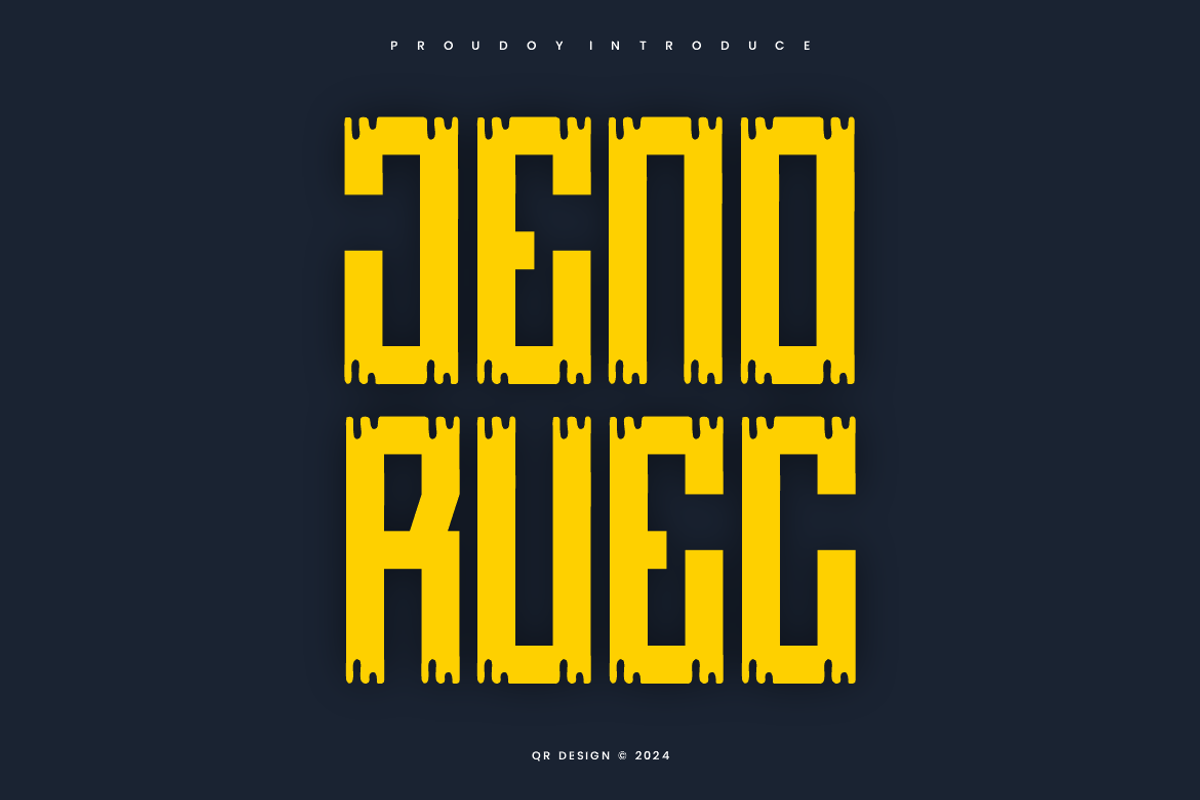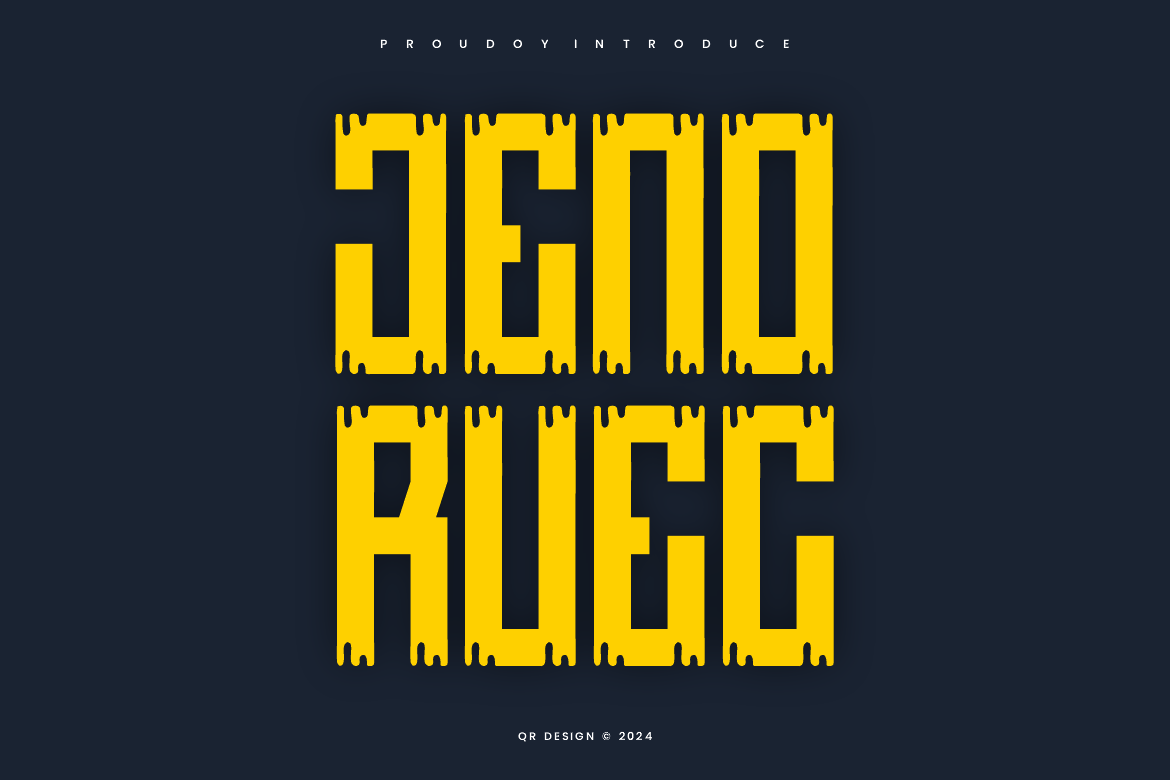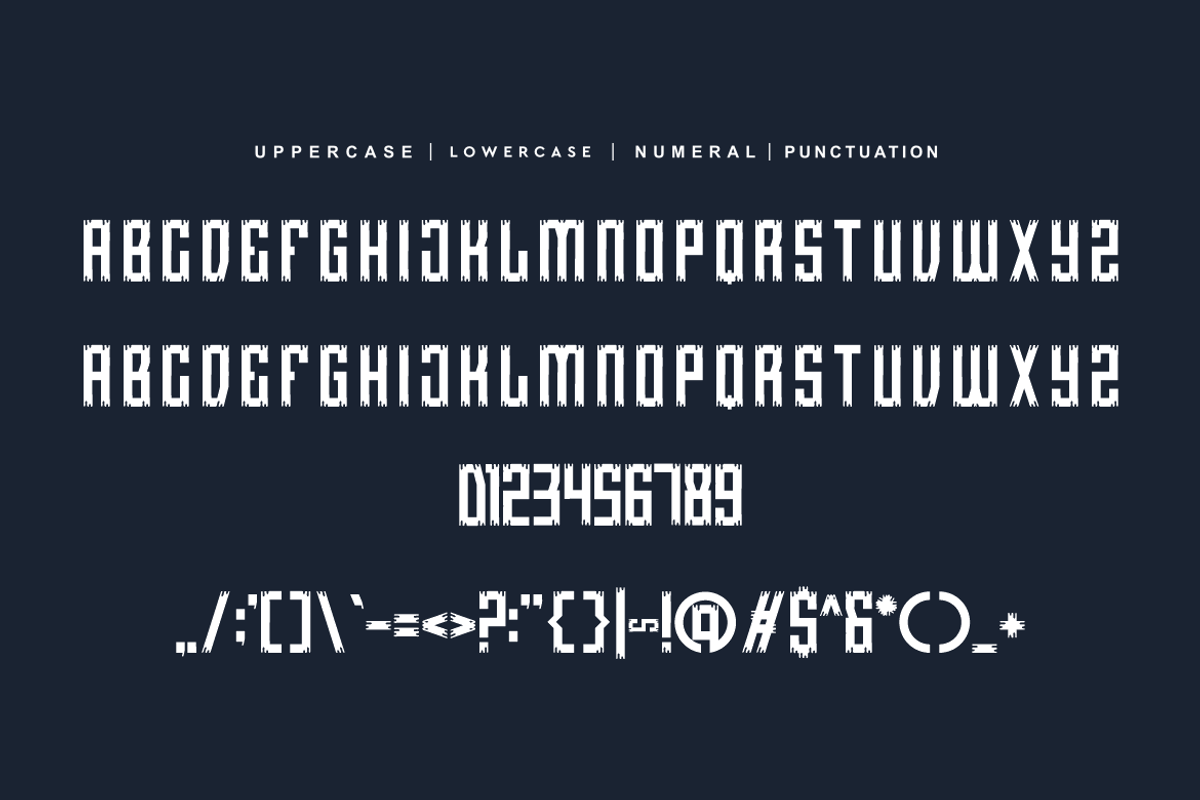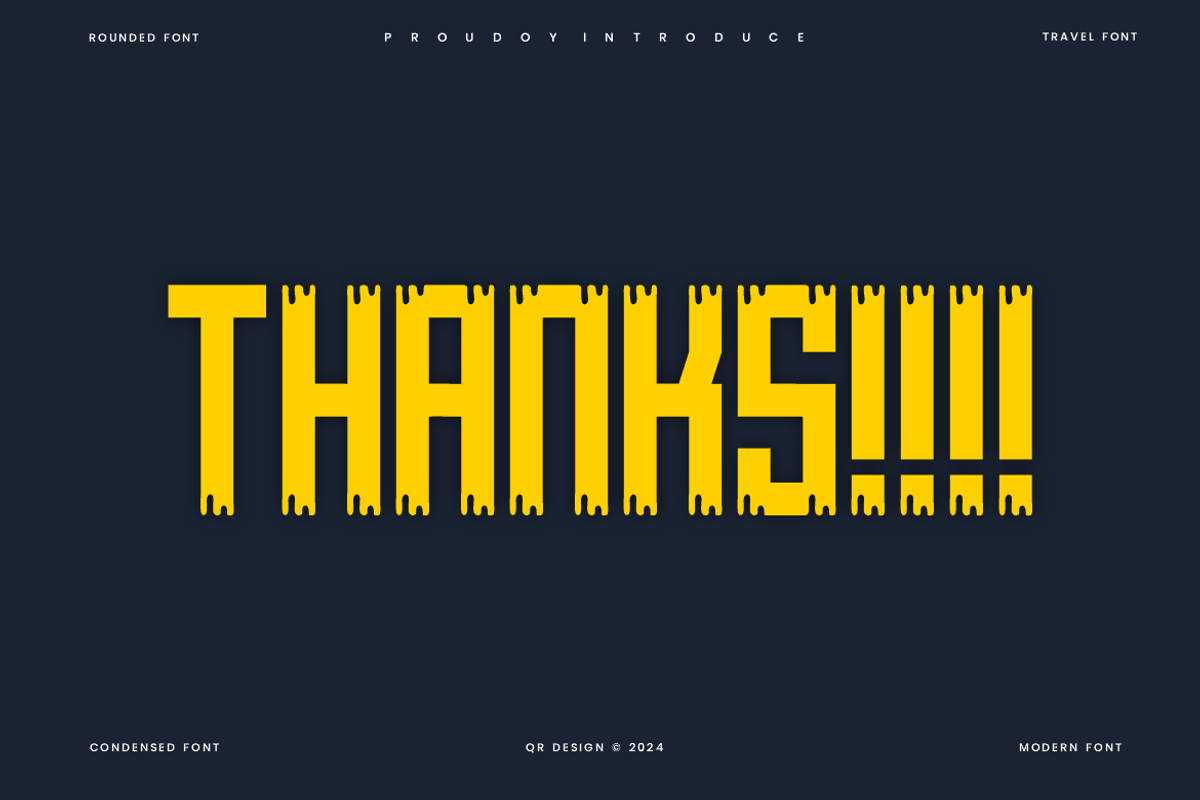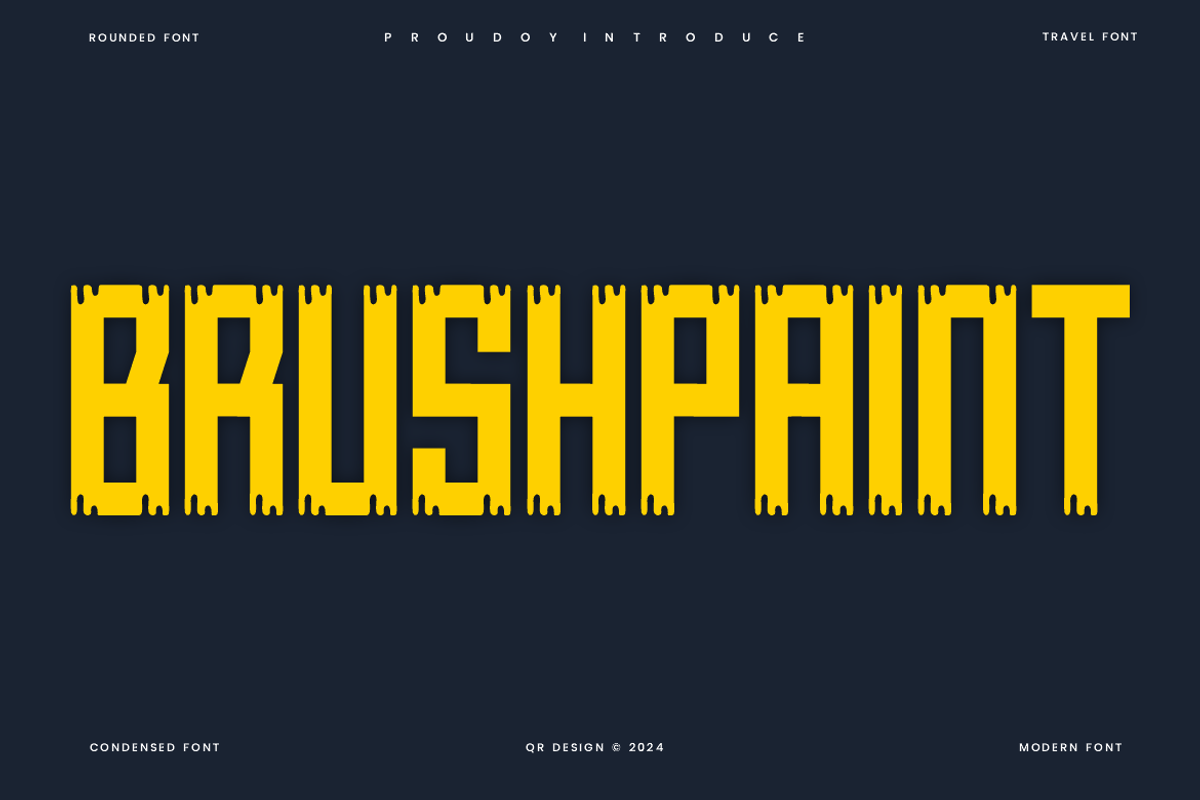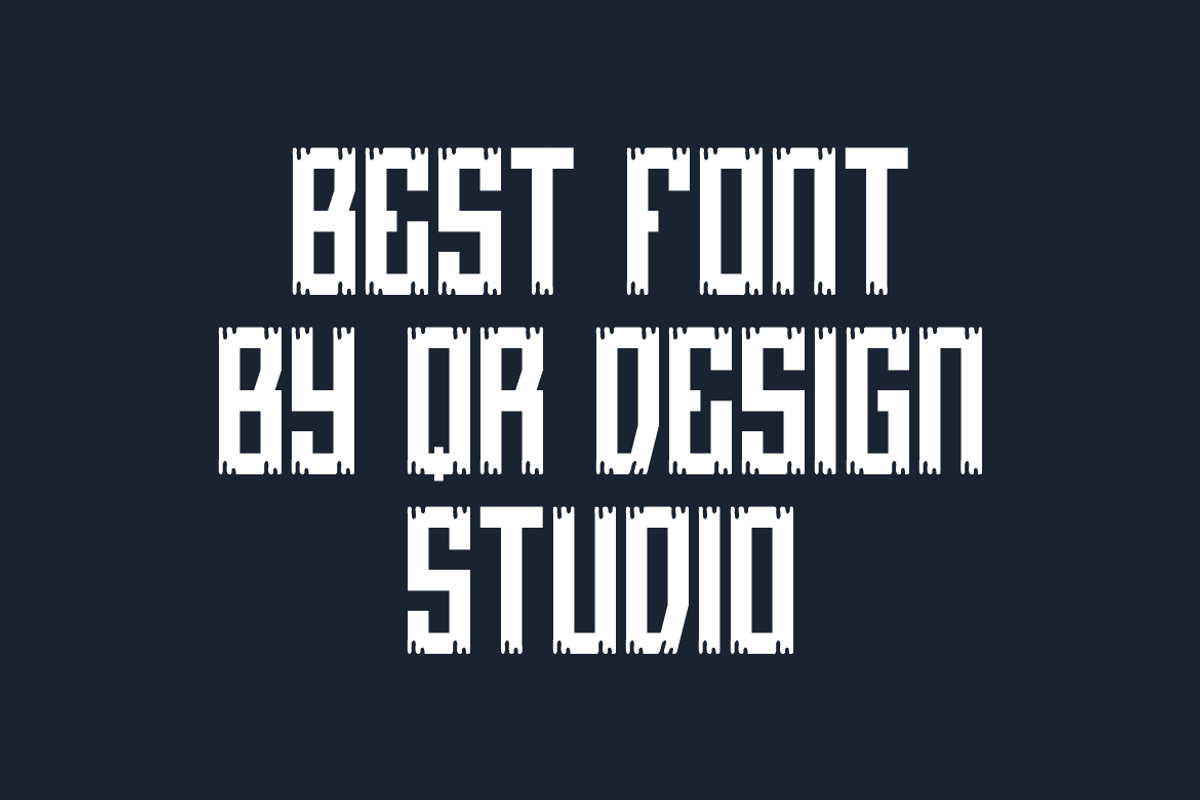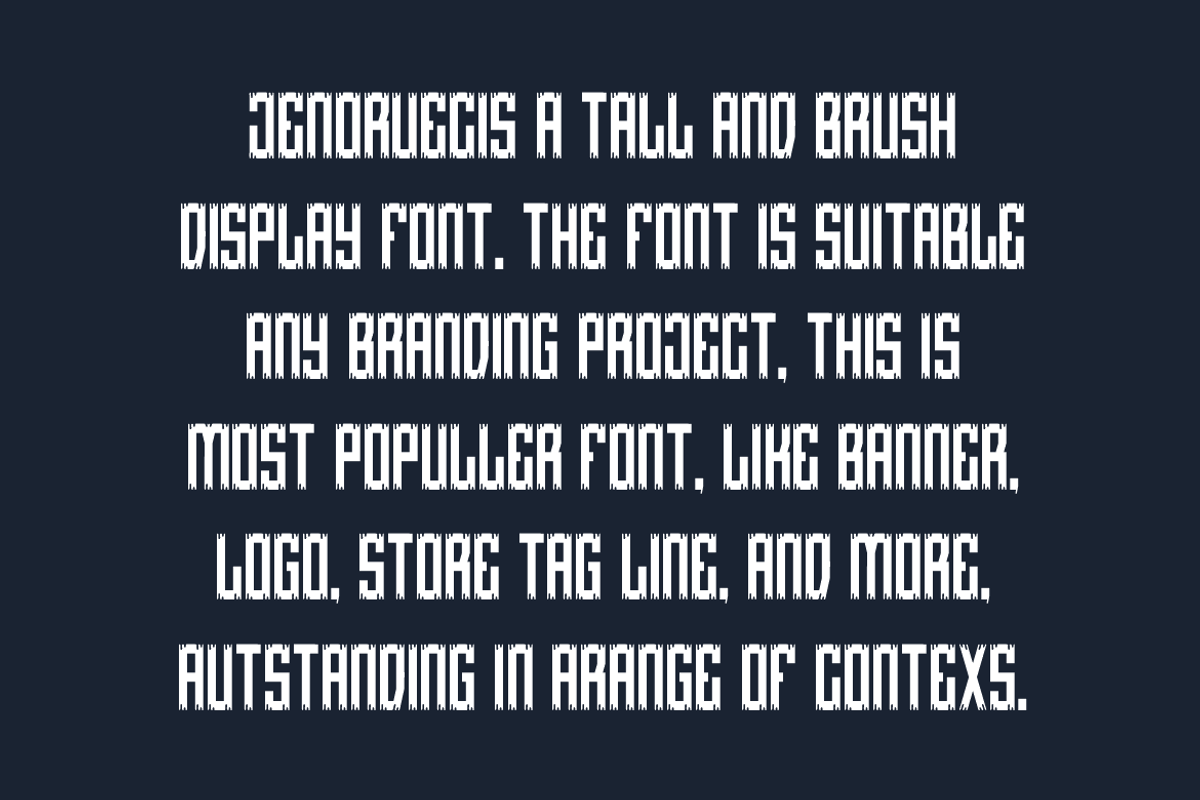
Jenoruec - Brush & Paint Font
Jenoruec - Brush & Paint Font is a bold and authentic display font. The font is suitable for any branding project like poster, logo, sport, and many more. Outstanding in a wide range of contexts.